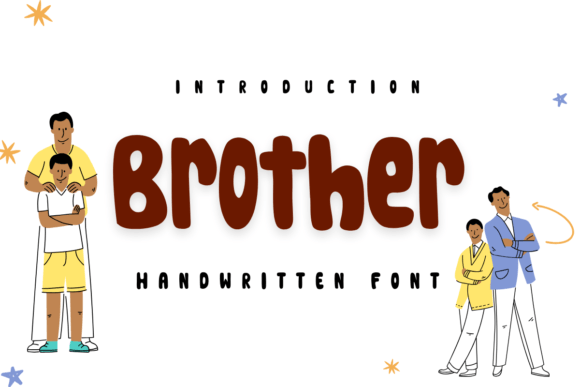
The Brother Font: A Handwritten Gem for Creative Expression
I’ll never forget the moment I stumbled upon the Brother font. I was working on a project for a client who wanted a personal, handwritten touch for their branding. I had spent hours scouring the internet for the perfect font, but nothing seemed quite right. That was until I discovered Brother – a beautiful, handwritten font that instantly captured the warmth and personality I was looking for.
So, what makes Brother font so special? Let’s dive into the good stuff and a few quirks I’ve noticed.
- ✨ Unique Character: Brother font has a distinct, hand-crafted feel that sets it apart from more generic fonts.
- ✅ Versatility: It’s perfect for a wide range of projects, from notes and diaries to greeting cards and invitations.
- 💕 Emotional Connection: The font’s imperfections and quirks make it feel more personal and relatable.
While Brother font is amazing, there are a few things to keep in mind:
- ⚠️ Legibility at Small Sizes: Like many handwritten fonts, Brother can be a bit tricky to read at very small sizes.
- 🤔 Limited Formality: This font is best suited for informal or personal projects; it may not be the best choice for more formal or professional designs.
The story behind Brother font is one of passion and creativity. Imagine a designer who spent countless hours perfecting a handwritten font that captures the essence of personal notes and letters. The goal was to create a font that feels like it was written by a friend – warm, inviting, and full of character.
| Font Name | Brother Font |
| Author | Sirinart |
| What makes Brother font unique? | Brother font’s uniqueness lies in its hand-crafted, personal feel, making it perfect for projects that require a touch of warmth and personality. |
| Is Brother font suitable for body text? | While Brother font is beautiful, it’s best used for headings or short paragraphs due to its handwritten nature and potential legibility issues at small sizes. |
Brother font is more than just a typeface – it’s a way to add a personal touch to your designs. Whether you’re a designer, crafter, or hobbyist, this font offers a unique way to connect with your audience. So go ahead, experiment with Brother font, and see how it can bring your projects to life!